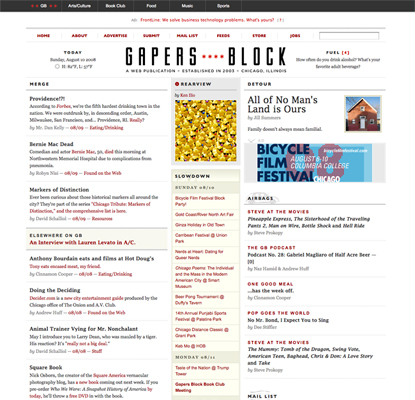
Sure, it’s not The New York Times, but Naz Hamid and Andrew Huff’s Chicago-based web publication Gapers Block looks just as good. More than the well-crafted layout, it is the typography in this gorgeous site that truly makes it a winner.
At first glance, there are three main typefaces in use on Gapers Block. The majority of the sites copy is set in Georgia while both Gill Sans and Arial are used for other headings, menu items, and links.
It seems that Coudal may have pioneered the use of Gill Sans on news style sites – set in bold with extra letter spacing – but Gapers Block does a fabulous job using this style to introduce several of the main sections of the site.
Arial is used sparingly throughout various portions of the site as well. The reversed out menu located on the top of every page contains links to the most prominent sections of the site. To differentiate these links from the secondary navigation located directly above the logo, they have been set in Arial. Both menus are set in sans-serifs, but the difference between Arial and Gill Sans bold is enough to separate the two.
Georgia is the most popular typeface used throughout the many pages of Gapers Block. It is used for headlines, story titles, and story text. In my experience, an overzealous use of Georgia in both headlines and copy tend to make reading more difficult. However the site makes very good use of horizontal rules on both the front page as well as individual article pages to separate headlines from content, giving pages enough white space to increase readability.
What has most impressed me is the fantastic use of sIFR throughout the main sections: Arts/Culture, Book Club, Food, Music, and Sports. Web typography today is still in its beginnings. There are few fonts that designers can choose to really separate their designs from the rest. The designer chose to implement the Hoefler & Frere-Jones typeface Archer, a recently released, eccentric slab serif. In these main sections, Archer is used for certain sub menus, headlines, bylines, and article previews. Full article text is set in Arial, rather than Georgia (which is used for body copy throughout the rest of the site). By using Archer, a typeface not commonly seen online, the visual style is both memorable and pretty!
I don’t have many complaints about Gapers Block, but a few things found throughout the site are a little distracting. As you can see on the home page, the smaller headlines found under the section Merge are set in Georgia bold. Under the section Detour, however, the main article headline is set in a larger size Georgia, but not set in bold. Now, if a reader was to navigate to the Arts & Culture section, they would find that the main headlines are set in large, dark, and bold Georgia. The heaviness of these headlines compared to the other articles located on the site seem out of place and detract from the design.
Despite some visual quirks that I wouldn’t mind seeing changed, Gapers Block as a whole is a design success, both typographically and in layout. What do you think?
Cripes, that’s a lovely site. I would go so far as to say that it’s better than the New York Times, in my humble opinion. Though I agree with you that it’s more than a bit inconsistent—-it seems a bit shabby in that respect.
Is that really Georgia in those article titles? The eye-sore bold titles are definitely Georgia, but the article title on that third screenshot is definitely not Georgia.
OK, I just took a quick look at the CSS and found that it’s Lucida Fax, which —in all honesty— I had never even heard of. I think it looks gorgeous!
On first click I wasn’t a big fan. It has issues issues creating dominance and nothing immediately draws me in. However, the real problem I discovered is that while most of the website is center aligned or at least spans the full width, the top navigation is left aligned and only spans a bit over half the width. This puts too much weight on that left side and throws off the balance of the design.
However, looking at the site in bits and pieces through your article, there are lots of great details.
Thanks for the heads up, Alfonso. When writing this review, I wasn’t aware that the headlines were set in Lucida Fax. I don’t have it installed on my Mac, which is why I mentioned Georgia in the article. I can see why they chose Lucida Fax over Georgia, though. It looks great!
Gapers Block is a shining example of imaginative web typography. A well deserved profile, indeed.